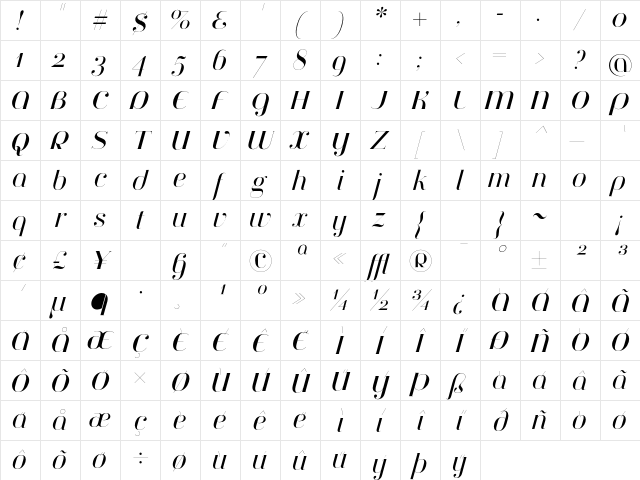
Complete Jeanne Moderno OT TitlingItalic glyph index. Displaying only characters natively supported by Jeanne Moderno OT TitlingItalic font.
Jeanne Moderno OT is a composed and adaptable typeface that performs quietly and consistently across a wide range of design contexts. The slanted form adds forward momentum and visual energy.
Pro Tip: Use Jeanne Moderno OT for emphasis, pull quotes, and subheadings where its slanted energy can add rhythm to the layout.